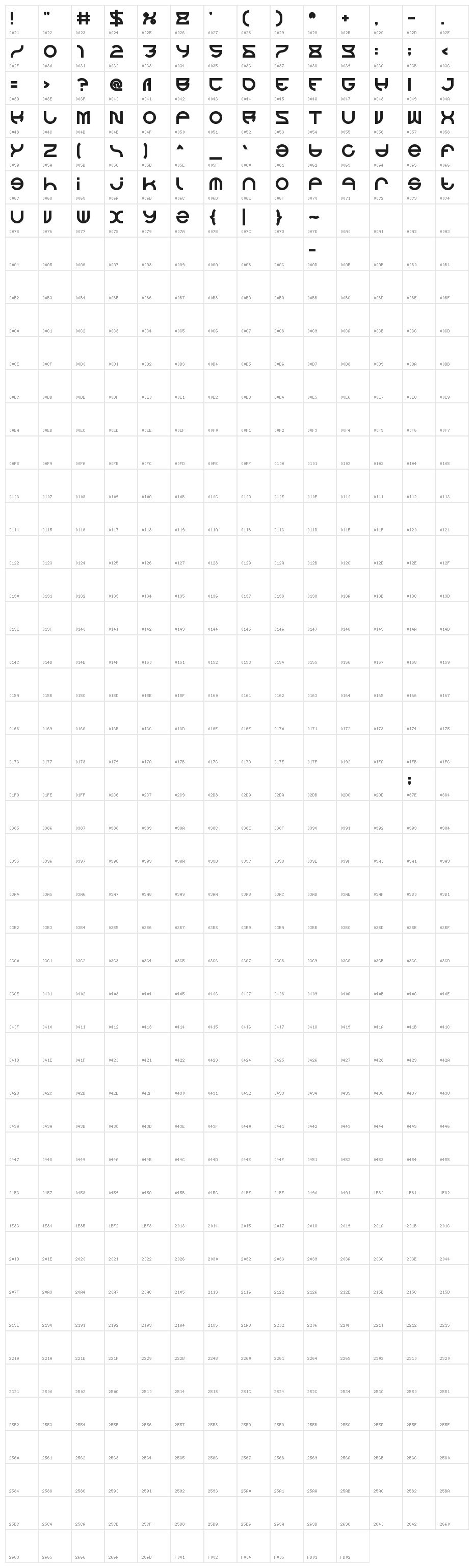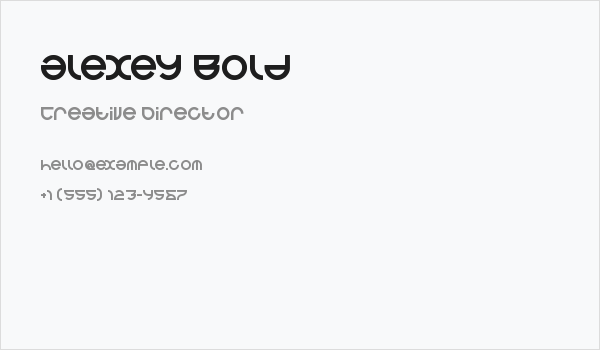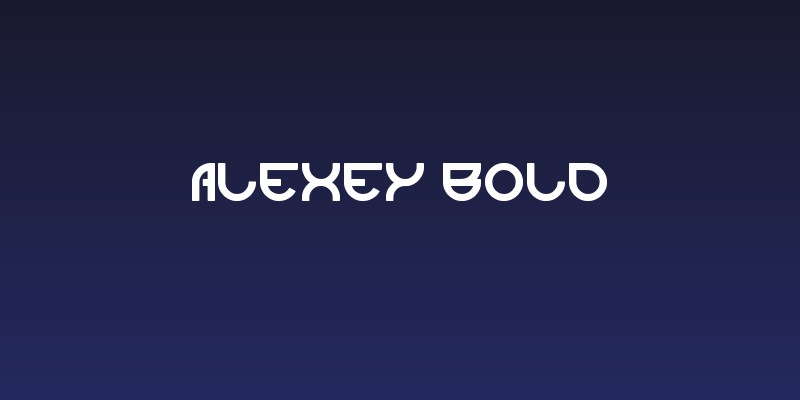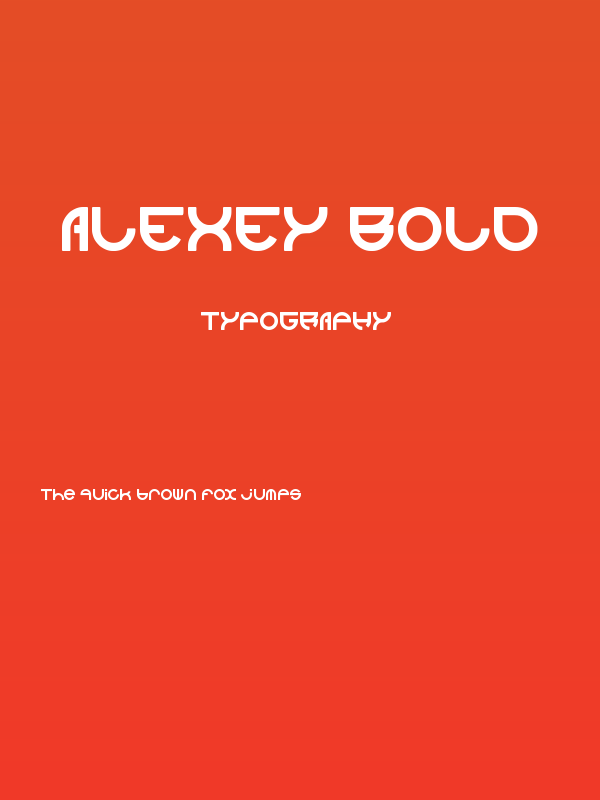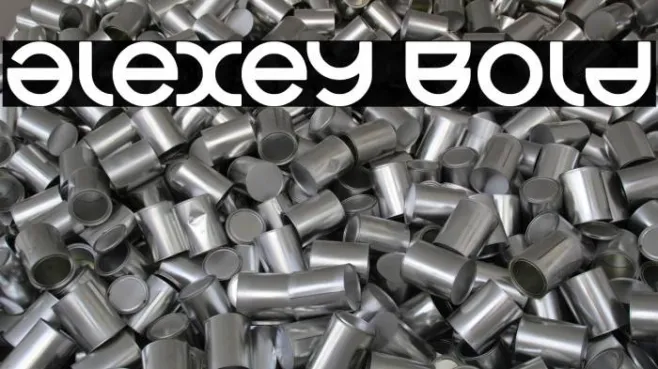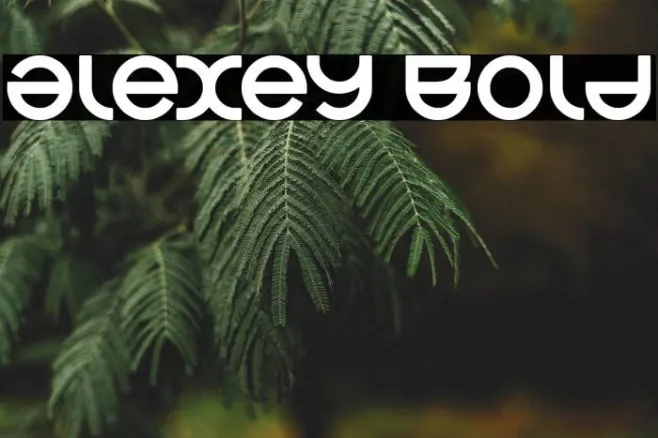
alexey Bold Font
alexey Bold Description
This font features a bold, futuristic design with geometric shapes and sharp angles. The characters are crafted with a unique blend of curves and straight lines, giving it a modern and edgy appearance. The uppercase letters are particularly striking, with a consistent thickness that enhances readability while maintaining a distinct style. The lowercase letters mirror the uppercase in style, ensuring a cohesive look. Numbers and special characters are designed to match the overall aesthetic, making this font versatile for various applications. Its boldness and distinctiveness make it stand out, perfect for projects that require a strong visual impact.